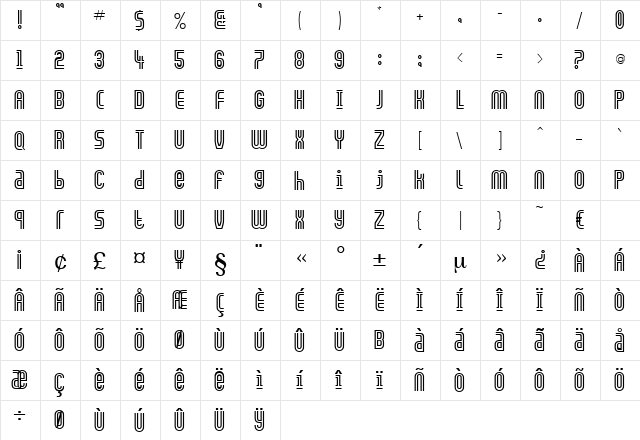
Monopol Regular
Design Context for Monopol Typeface
Monopol brings the precise, column-aligned rhythm of monospaced typography to designs that value technical clarity and systematic order.
Pro Tip: Pair Monopol with a proportional sans for UI contexts where code-style labels and regular body copy need to coexist.